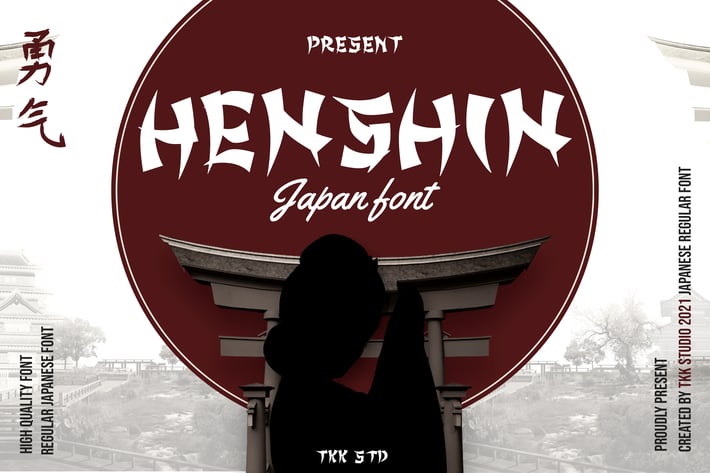
Japanese Font - Henshin
HENSHIN - Faux Japanese Brush Font
HENSHIN Font captures the essence of Japanese street and pop culture through bold brush strokes, angular cuts, and high-contrast forms. This faux Japanese typeface blends ancient warrior energy with contemporary manga aesthetics—perfect for headline impact. The characters feature sharp terminals and dynamic motion, creating an expressive and daring look that mirrors katana strokes and sumi-e calligraphy.
The vibe is fierce and cinematic—great for anime merch, ramen packaging, martial arts posters, and game branding. Its visual punch lies in its high-contrast structure, jagged edges, and purposeful spacing that gives every word a commanding presence.
Ideal for titles, logos, or posters that need a Japanese-style aesthetic with edge, HENSHIN speaks to illustrators, streetwear designers, game creators, and marketers looking to invoke Eastern influence without using actual Japanese characters. Its faux-kanji structure makes it perfect for movie trailers, dojo flyers, Tokyo-inspired cafes, or ninja-themed packaging. If your project needs a font that instantly tells a story of strength, speed, and spirit—this is it.
Key Features :
✔ Faux Japanese Letter Style
- Inspired by katakana flow and calligraphic strokes—great for visual storytelling.
✔ High Contrast & Sharp Energy
- Strong terminals and heavy curves demand attention in logos, posters, and packaging.
✔ Perfect for East-Inspired Projects
- Use it in anime branding, martial art clubs, sushi bars, Asian festival events & more.
✔ Bold Yet Flexible
- Maintains its energy in both digital and print settings—large or small formats.